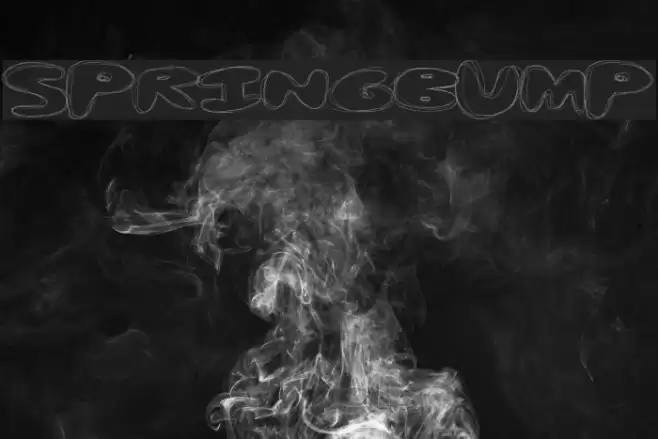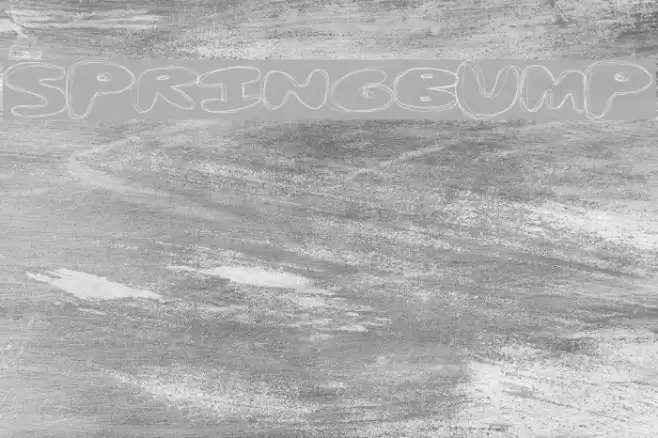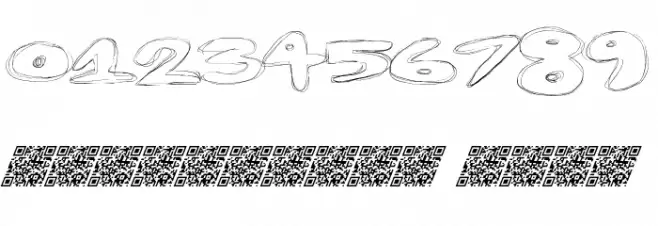
SpringBump Font
SpringBump Description
This playful and bold font features a unique bubble-like design, characterized by its rounded and inflated letterforms. Each character appears as if it is filled with air, giving a sense of buoyancy and fun. The strokes are consistent in width, creating a uniform appearance across all characters. The font maintains a whimsical and informal style, making it suitable for creative and lighthearted projects. Its distinctiveness lies in the exaggerated curves and soft edges, which contribute to its approachable and friendly aesthetic.
A playful, bubble-like font with rounded, inflated letterforms from Cartoon fonts.
- Proposed Projects: Ideal for children's books, party invitations, playful branding, and creative posters.
- Overall Style: Playful, Whimsical